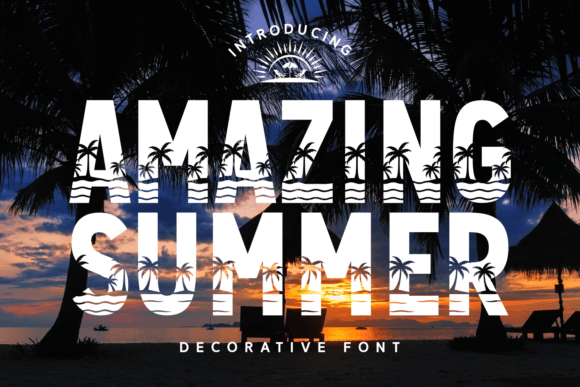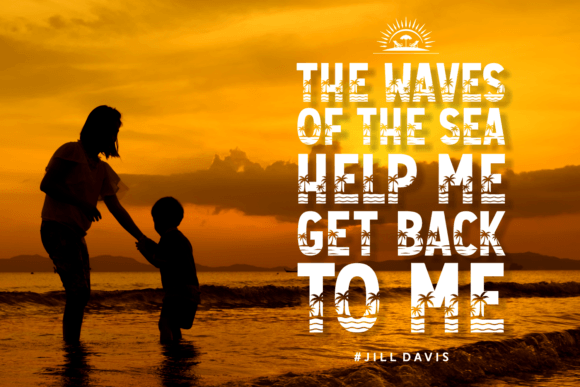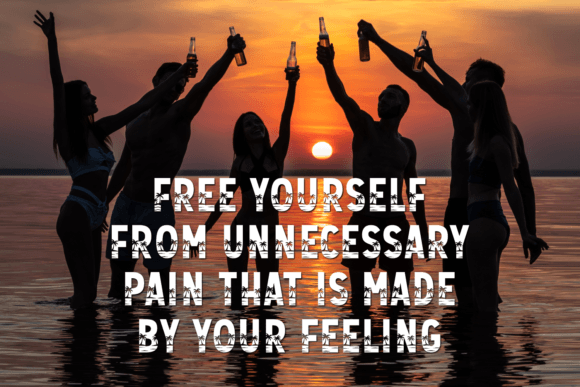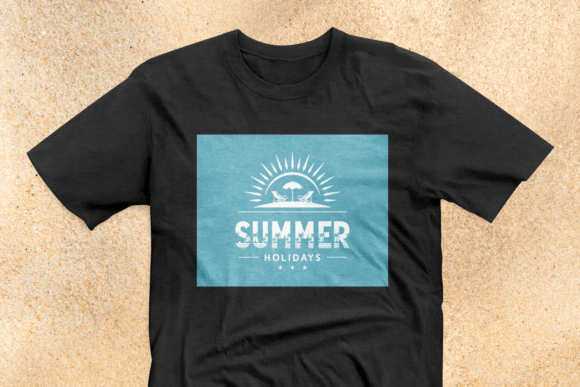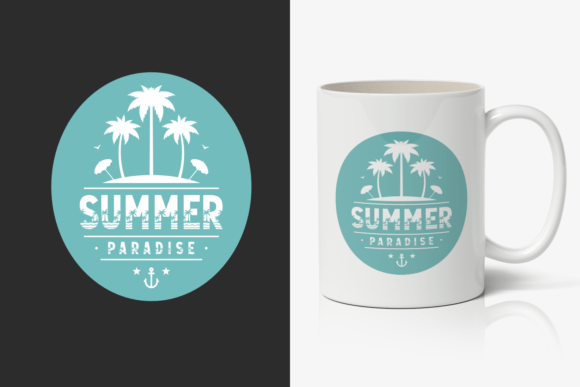
Amazing Summer Font
Amazing Summer is a vibrant and festive typeface that embodies the carefree spirit and sunny vibes of the summer season. With its whimsical design and charming palm tree details, this font captures the essence of tropical paradise, making it perfect for projects that evoke feelings of warmth, relaxation, and fun in the sun. This font is perfect for a wide range of design projects including summer events, vacation destinations, summer-themed products, and social media content.
Whether used for summer events, vacation destinations, product branding, or social media content, this font infuses projects with the warmth, energy, and carefree spirit of the season, inviting viewers to escape to a world of sun-soaked fun and tropical delights.